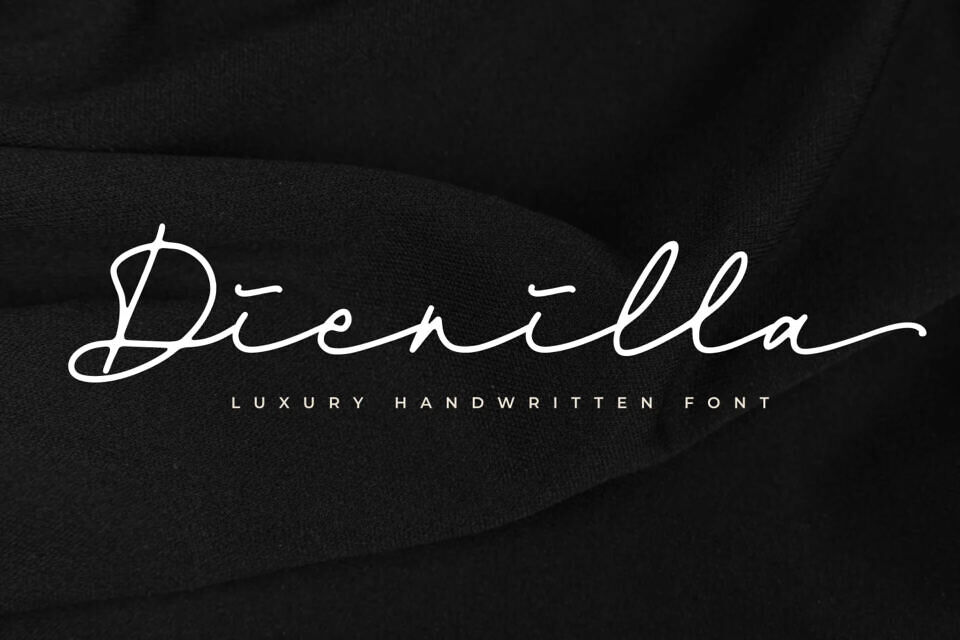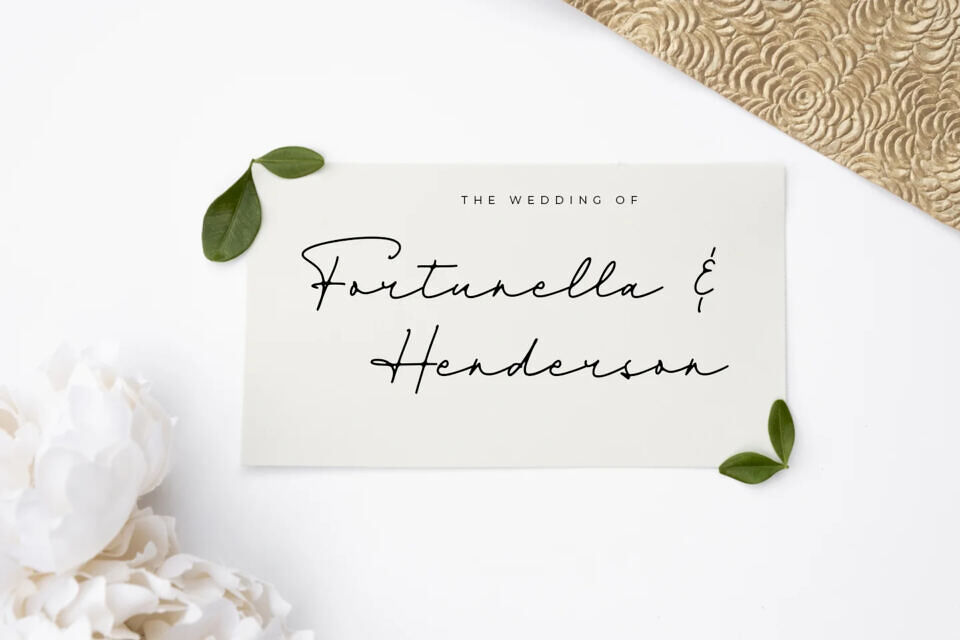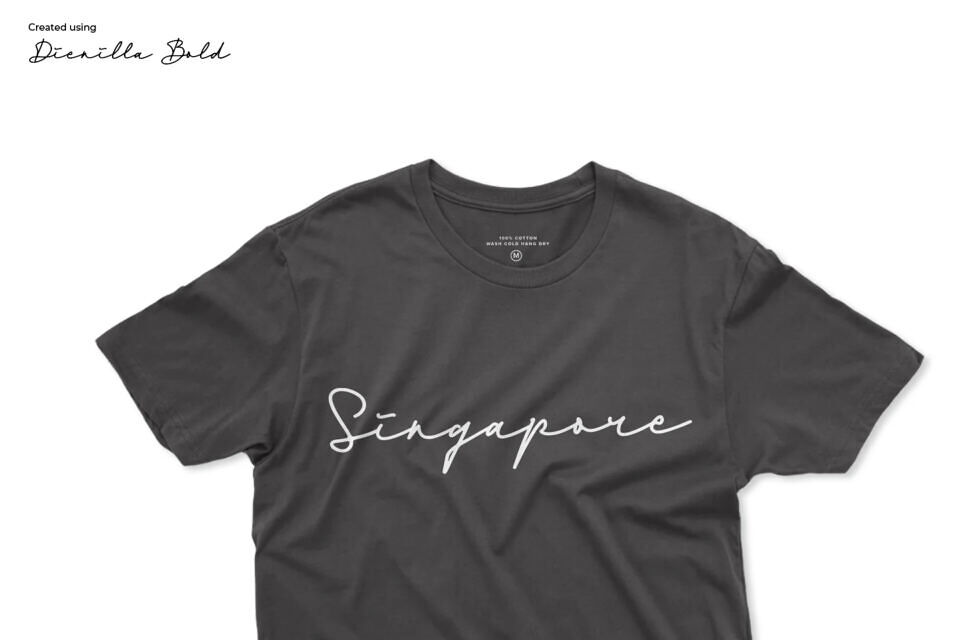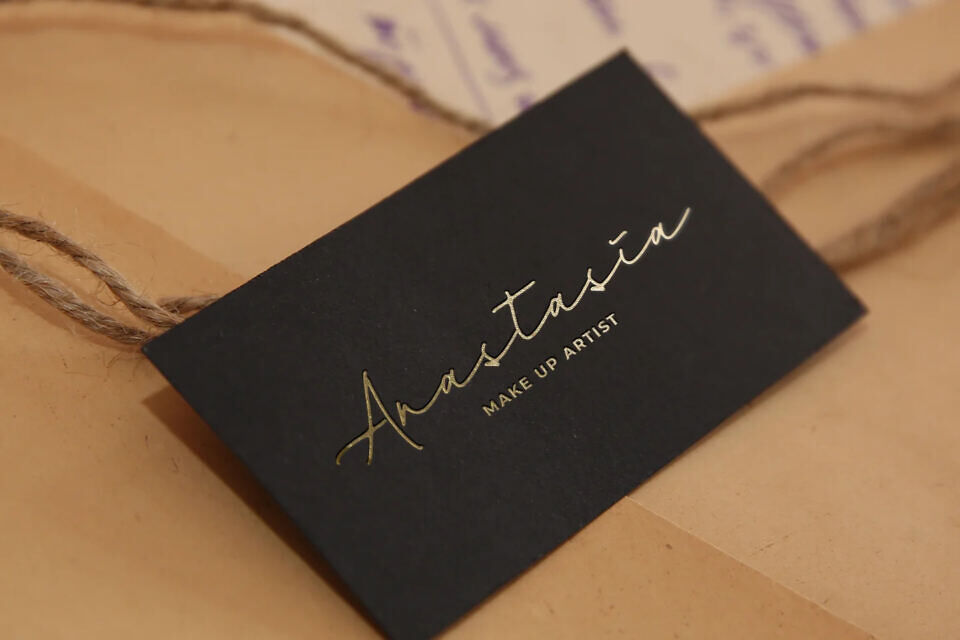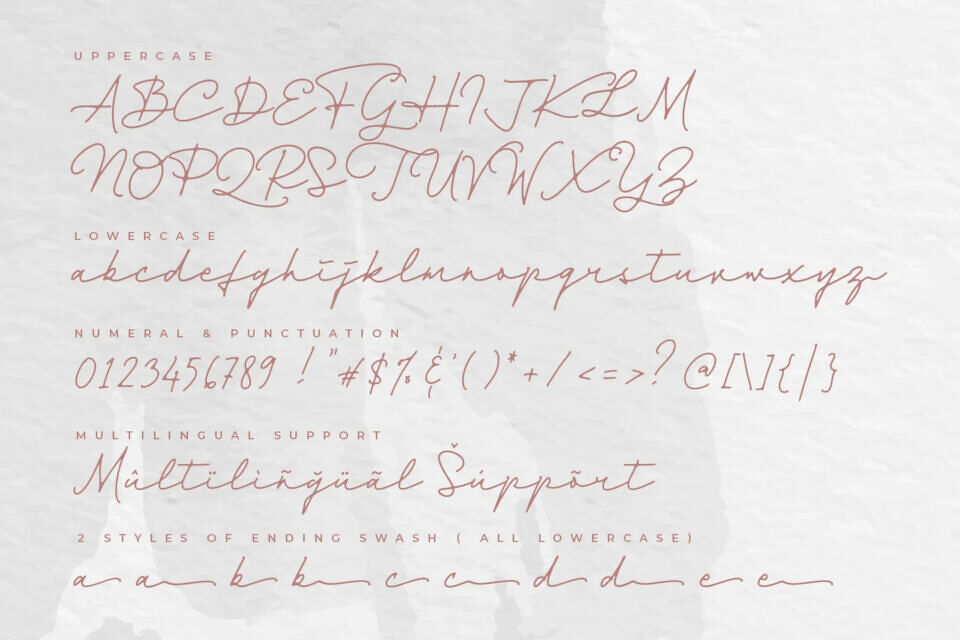
Dienilla is a luxury handwritten font that comes in 3 weights: Thin, Regular and Bold. Dienilla is great for branding, logos, wedding invitations, cards, quotes, T-shirt design, and many other projects that need a simple but elegant feel.